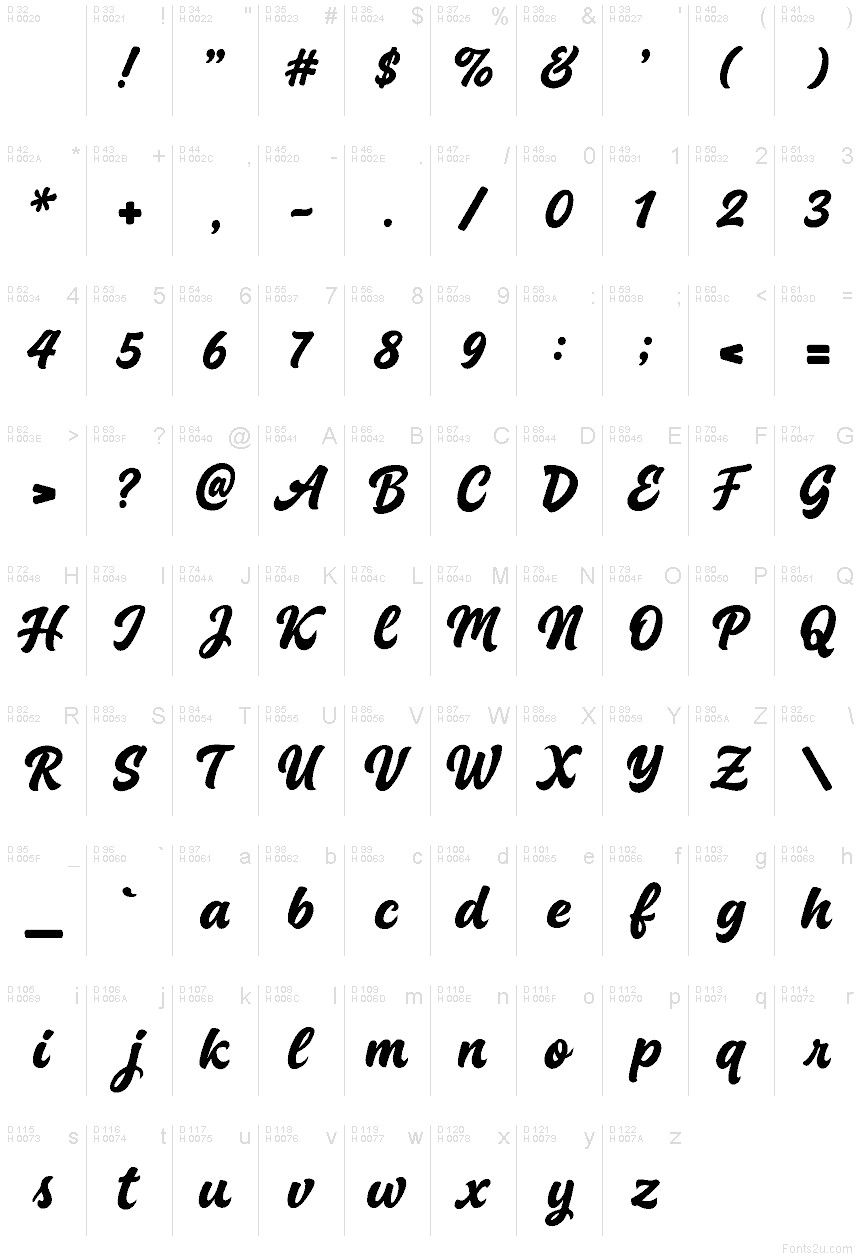
Vintage Stroke
Vintage Stroke font by BlackFridayFont FMF is a free brush script typeface. Thick, velvety strokes sweep forward with a confident slant, and the letters link in a smooth, sign‑painter rhythm that feels inky and hand‑pulled. It carries that storefront‑window energy—lush, bold, and a little glossy—so your words read like they were painted fresh.
Using Vintage Stroke, headlines and marks snap to attention on retro logos, café menus, product packaging, posters, drink labels, apparel prints, and social promos. The steady weight and tight rhythm keep compositions tidy even at big sizes; set it large and let it sing. For balance, pair this free font with a crisp, neutral sans-serif in small supporting text.